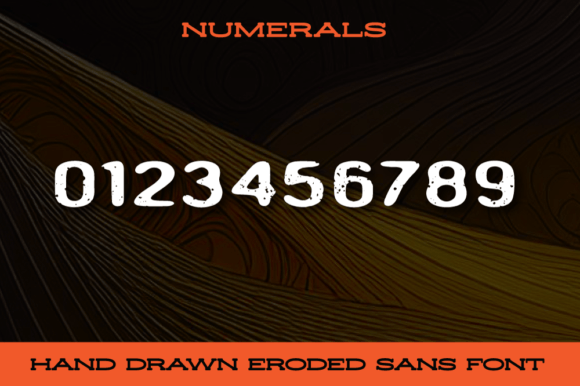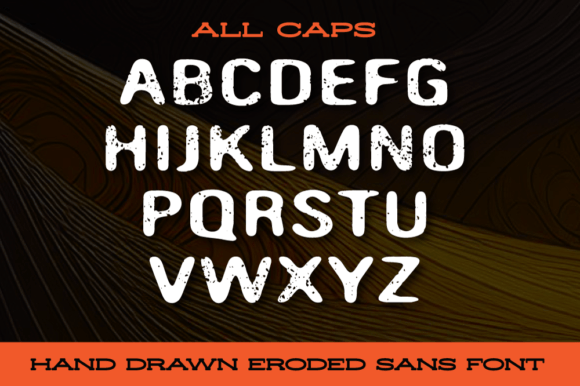
Introduction to Onimbus Rough Font Font
Fonts play a crucial role in design, and the Onimbus Rough Font font is a typeface that brings both character and versatility to any project. Whether you’re working on a branding project, a website, or a print design, the Onimbus Rough Font font offers a unique style that can elevate your work.
Introducing Onimbus, a typeface that embodies the beauty of imperfection and the allure of time-worn elegance.
Onimbus is a sans serif font with a distinctive eroded texture, reminiscent of aged stone or weathered wood Its softened edges and subtle irregularities give it a unique character that sets it apart from traditional sans serif fonts.
Key Features of Onimbus Rough Font Font
Why Choose Onimbus Rough Font Font?
The Onimbus Rough Font font is more than just a typeface – it’s a design tool that helps you communicate your message with style and clarity. Its unique character set and versatile design make it suitable for a wide range of applications, from elegant invitations to bold headlines.
With its carefully crafted letterforms and balanced proportions, the Onimbus Rough Font font ensures readability and visual appeal across all mediums.
What makes Onimbus Rough Font font special?
The Onimbus Rough Font font stands out with its unique design, exceptional readability, and versatility across various design applications.